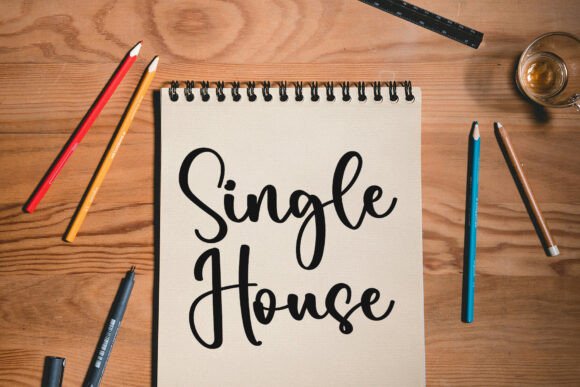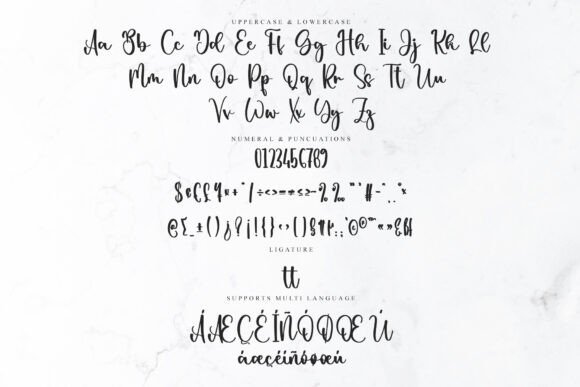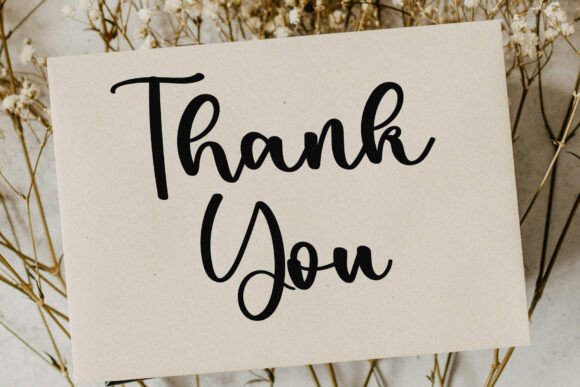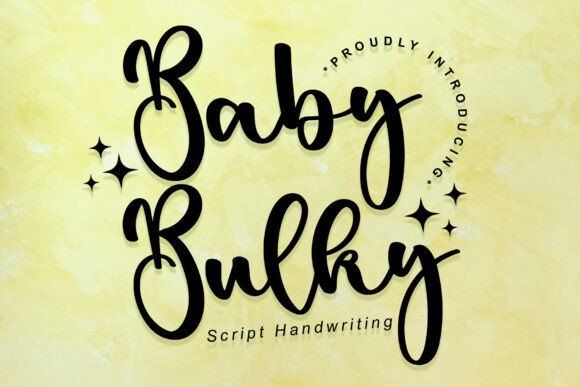
Baby Bulky Font: The Ultimate Addition to Your Design Arsenal
In the world of design, fonts play a crucial role in conveying the tone and personality of a project. Whether you’re working on a greeting card, a brand’s logo, or packaging, the right font can make all the difference. If you’re on the hunt for a stylish and modern handwritten font that can elevate your creations, look no further than Baby Bulky. This versatile font is perfect for a wide range of applications and is sure to bring a touch of happiness to your designs.
What Makes Baby Bulky Special?
Baby Bulky is a beautifully crafted handwritten font that boasts a unique and stylish aesthetic. Its modern design makes it perfect for designers and crafters who want to add a personal touch to their work. The font’s bulky yet elegant appearance is sure to capture the attention of your audience and leave a lasting impression.
PUA Encoding: Easy Access to Glyphs and Ligatures
One of the standout features of Baby Bulky is its PUA (Private Use Area) encoding. This means that you can easily access all the amazing glyphs and ligatures that make this font so special. With PUA encoding, you can unlock the full potential of Baby Bulky and take your designs to the next level. No more tedious searching for the perfect character or symbol – with Baby Bulky, it’s all at your fingertips.
The versatility of Baby Bulky is one of its greatest strengths. This font can be used for a wide range of applications, including:
- Greeting cards: Add a personal touch to your cards with Baby Bulky’s elegant and playful script.
- Headlines: Make your headlines stand out with Baby Bulky’s bold and eye-catching design.
- Branding: Create a lasting impression with Baby Bulky’s unique and stylish font.
- Packaging: Elevate your packaging designs with Baby Bulky’s modern and sophisticated aesthetic.
Why Choose Baby Bulky?
With so many fonts on the market, why choose Baby Bulky? Here are just a few reasons why this font stands out from the rest:
- Unique and stylish design: Baby Bulky’s modern aesthetic is sure to set your designs apart.
- PUA encoded: Easy access to glyphs and ligatures makes designing a breeze.
- Versatile: Perfect for a wide range of applications, from greeting cards to branding.
Tips for Using Baby Bulky
To get the most out of Baby Bulky, here are a few tips to keep in mind:
- Experiment with different sizes: Baby Bulky looks great in a variety of sizes, from small and delicate to large and bold.
- Play with color: The font’s modern design looks great in a range of colors, from bright and bold to soft and pastel.
- Mix and match: Combine Baby Bulky with other fonts for a unique and eye-catching design.
In conclusion, Baby Bulky is a stylish and modern handwritten font that’s perfect for designers and crafters who want to add a personal touch to their work. With its PUA encoding, versatile design, and endless possibilities, Baby Bulky is sure to become a staple in your design arsenal. Whether you’re working on a greeting card, a brand’s logo, or packaging, Baby Bulky is the perfect choice. So why wait? Download Baby Bulky today and start creating!